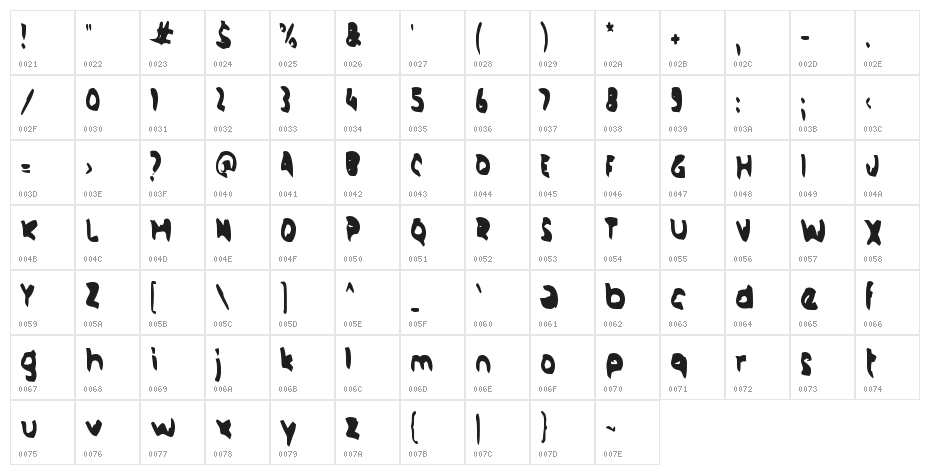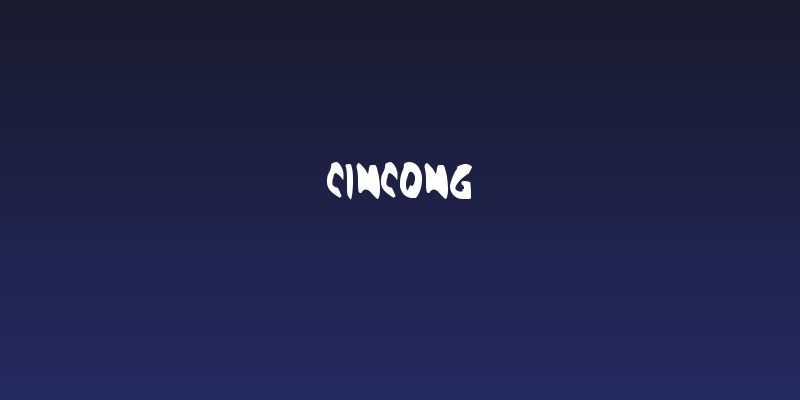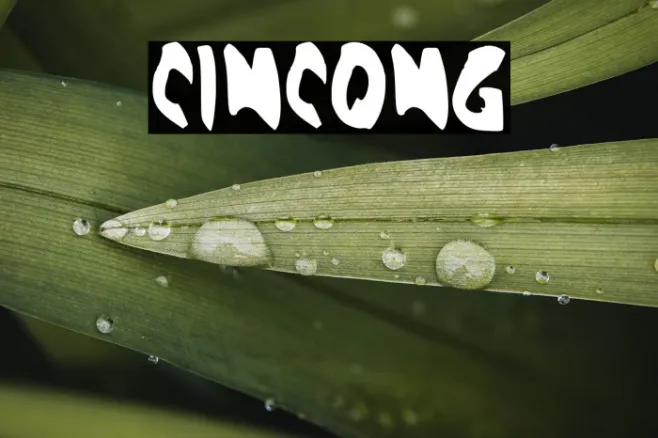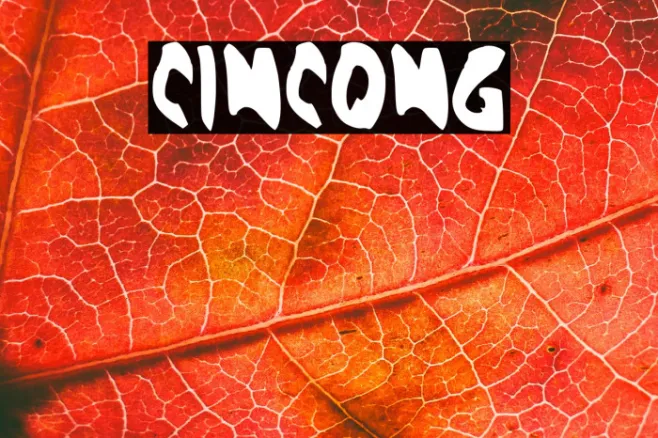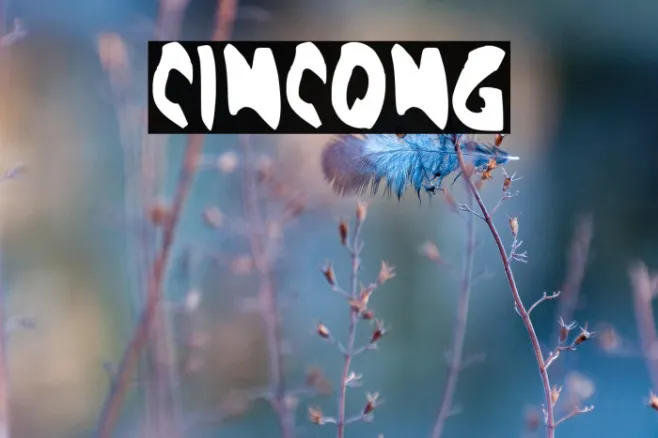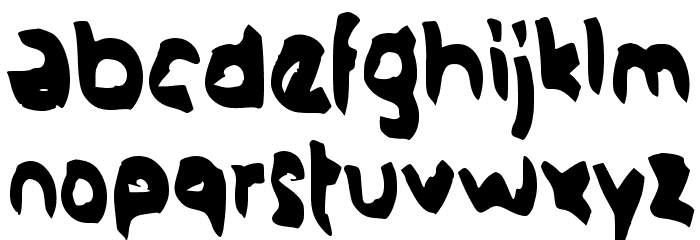
CINCONG Font
CINCONG Description
This font features a bold and playful style with a hand-drawn appearance. The characters are irregular and organic, giving it a unique and artistic feel. The strokes are thick and uneven, adding to its whimsical and informal charm. The font is highly decorative, making it suitable for creative and expressive projects. Its distinctive style captures attention and conveys a sense of fun and creativity. The letters are closely spaced, enhancing the compact and dynamic look of the text.
| Proposed Projects | Ideal for children's books, playful branding, creative posters, and artistic invitations. |